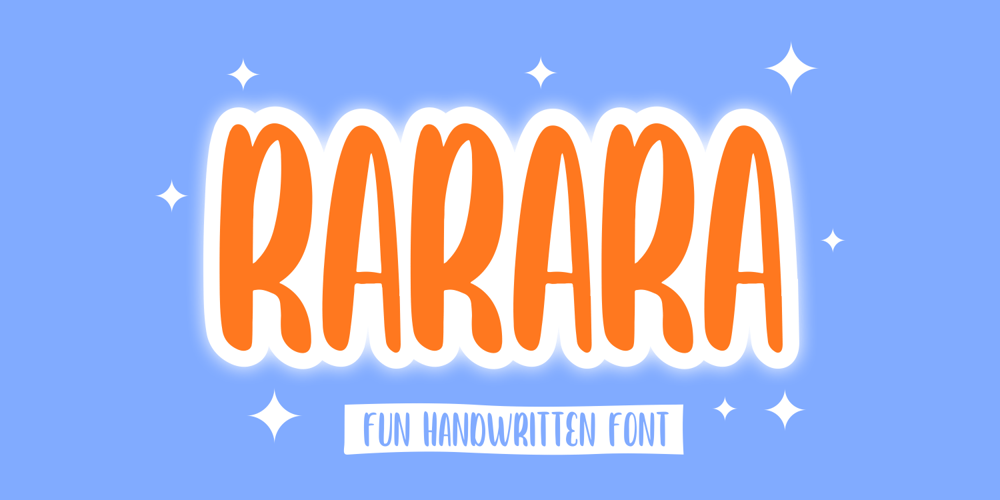
Rarara
Rarara font
Rarara Font Family was designed by ANGGI HERMAWAN and published by Forberas Club. Rarara contains 1 styles and family package options. Rara is simple handwritten font. Recommended to use for children theme, funny theme, comics, cartoon, simple write, poster and display and many more.